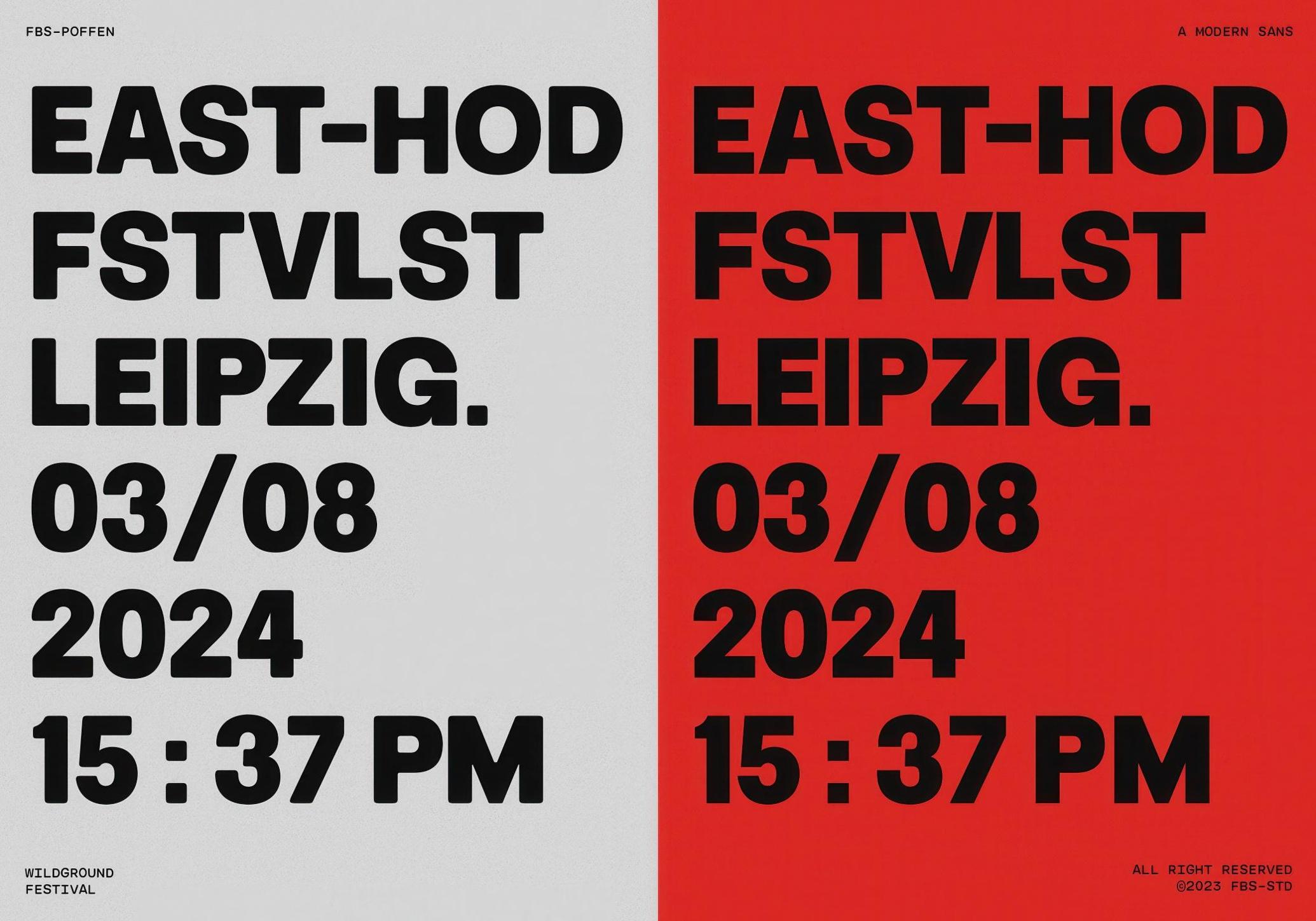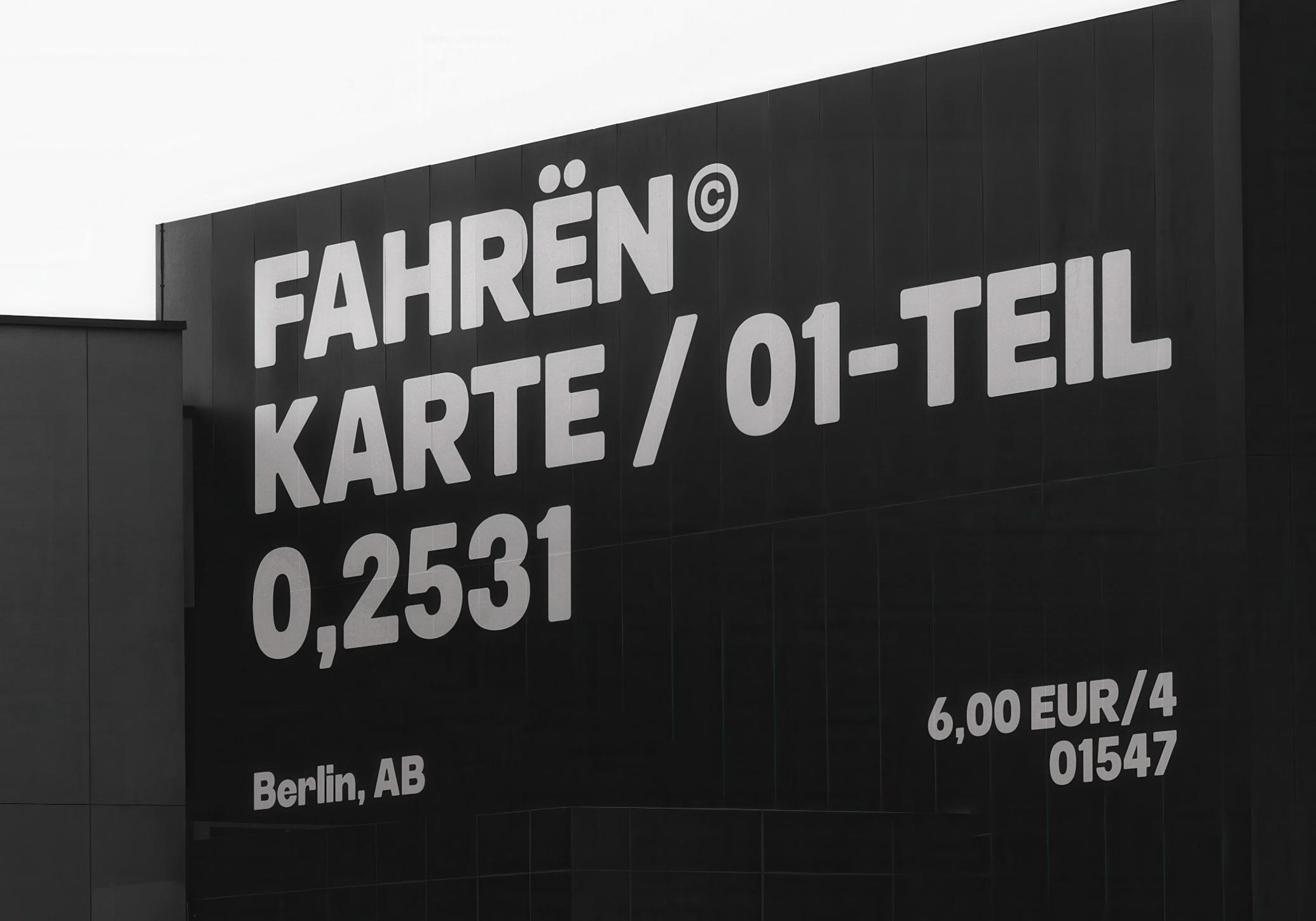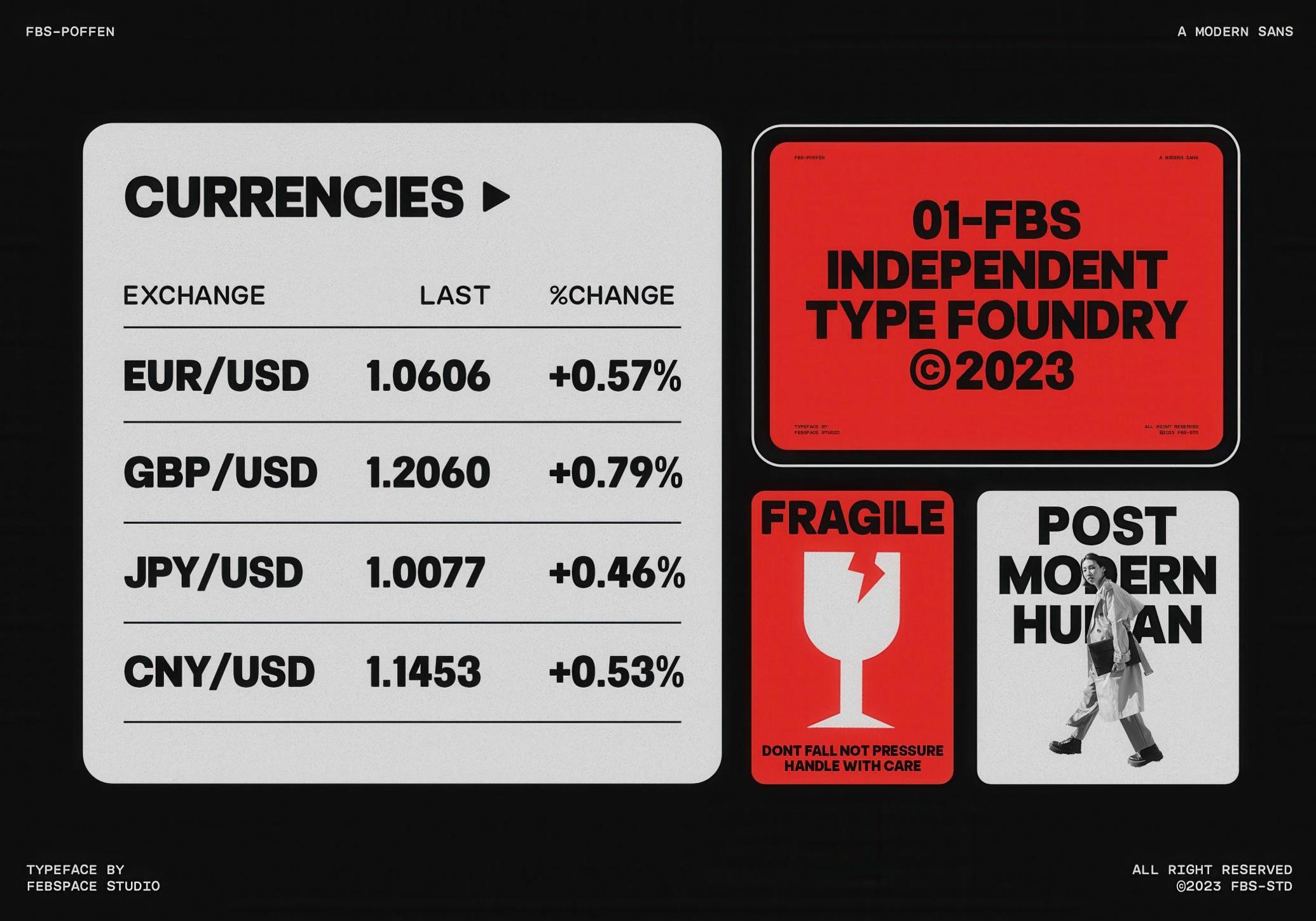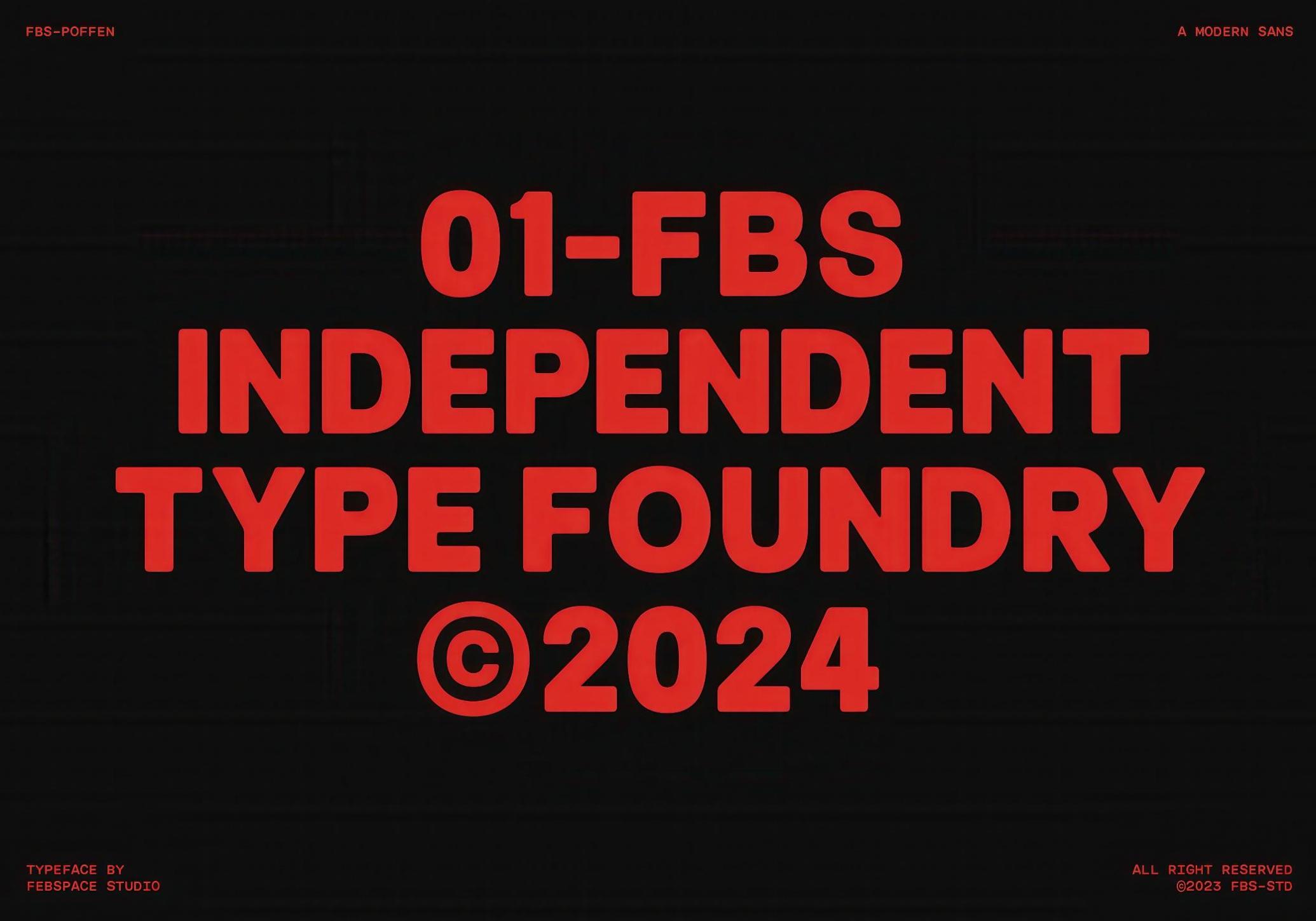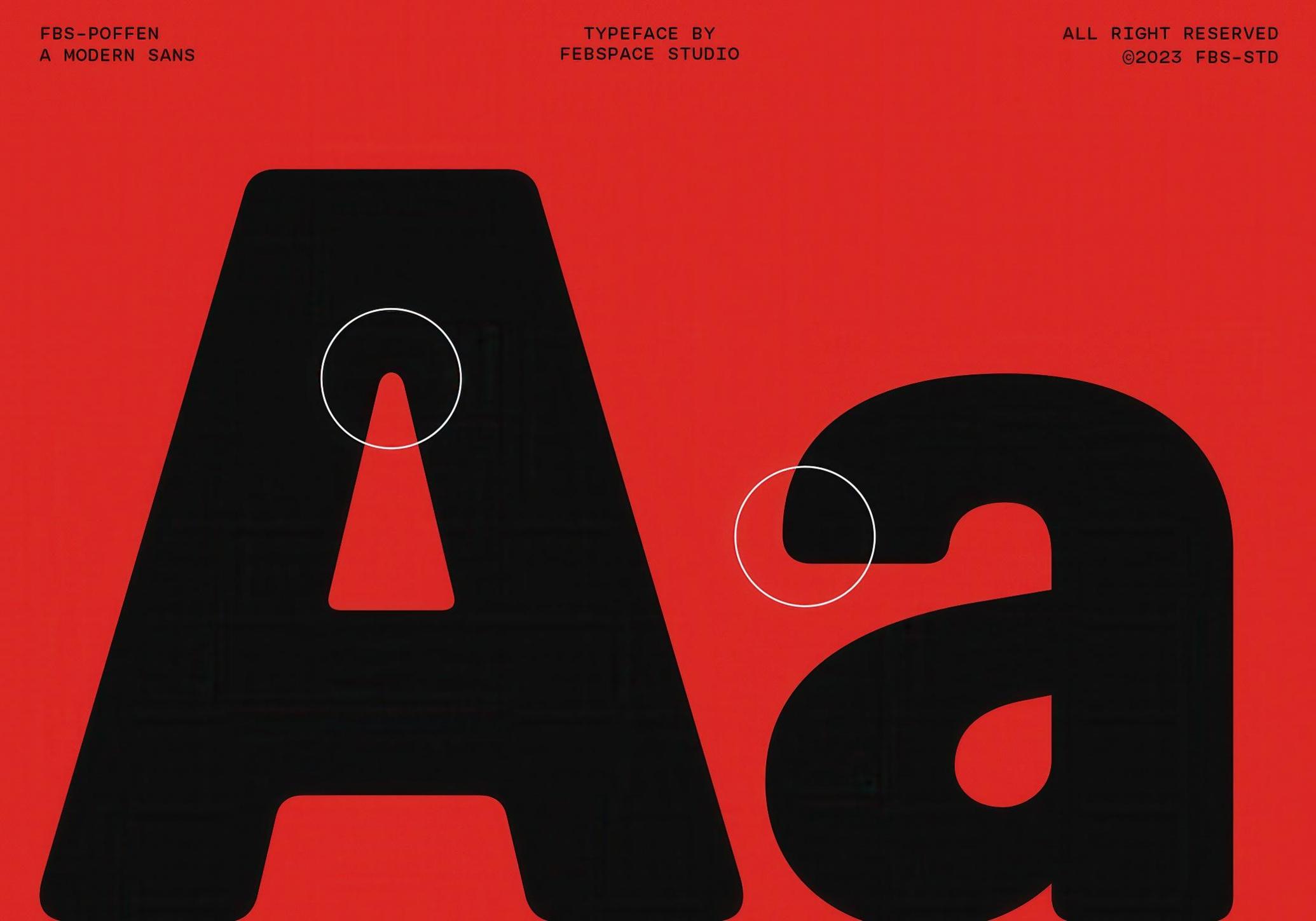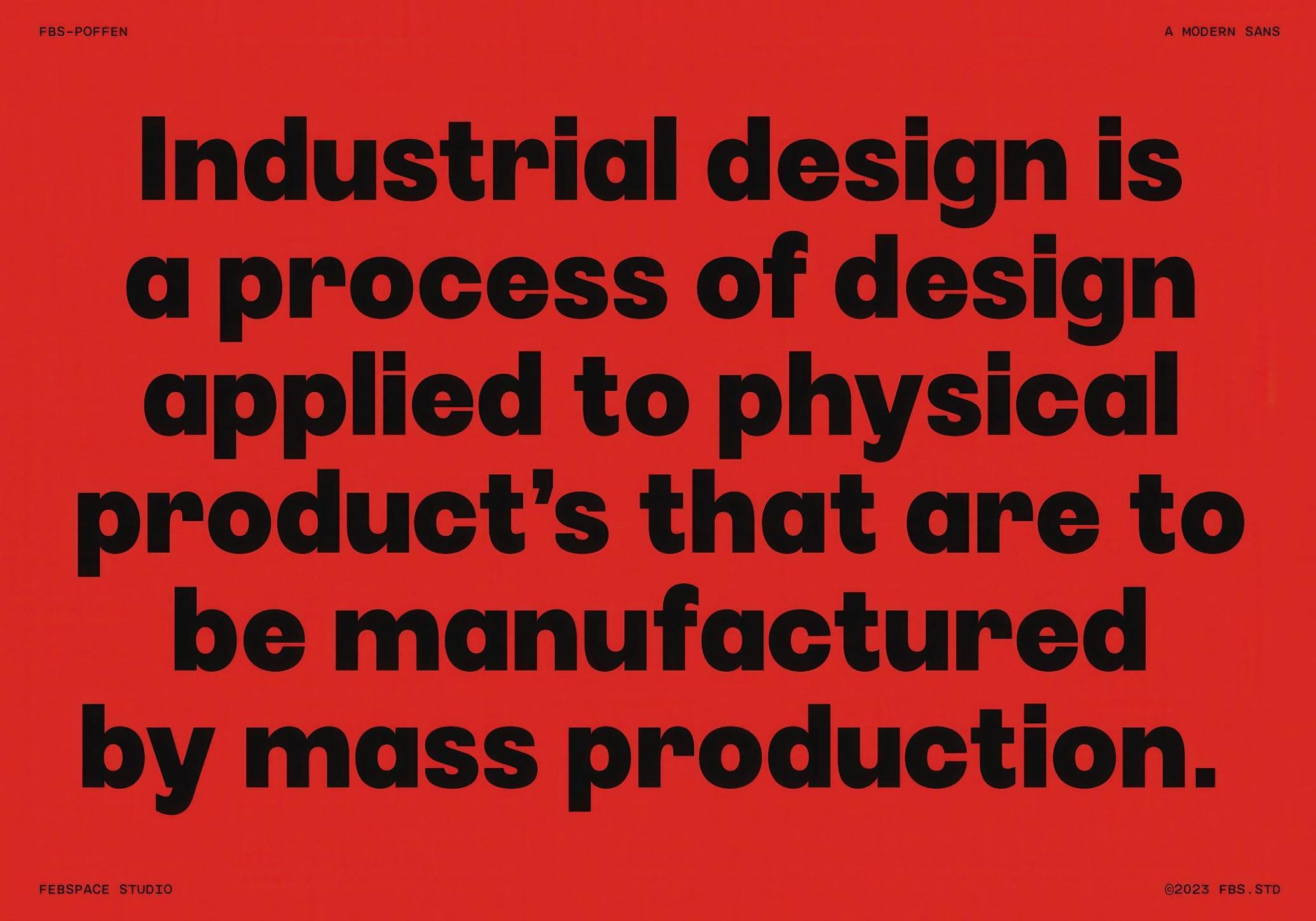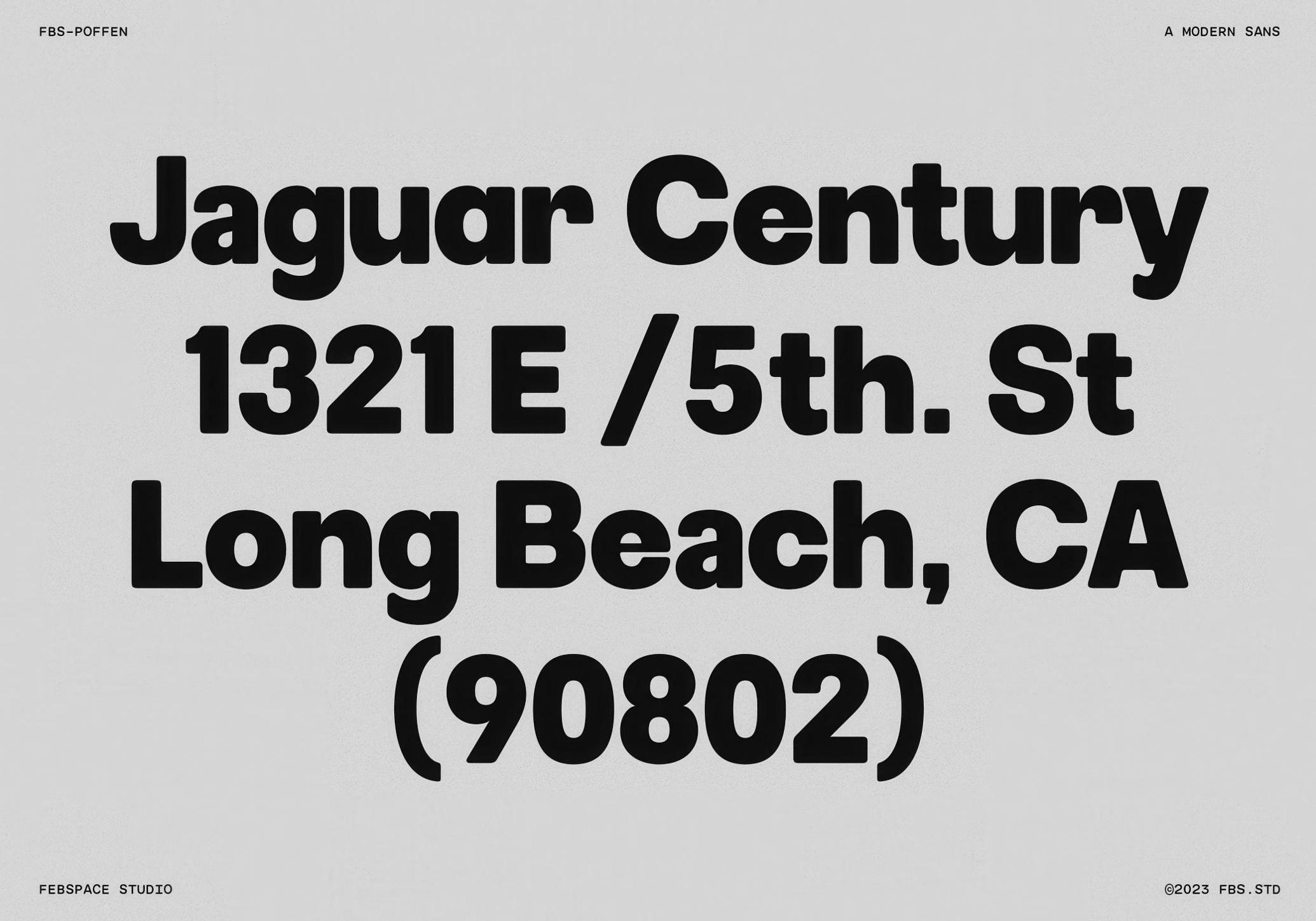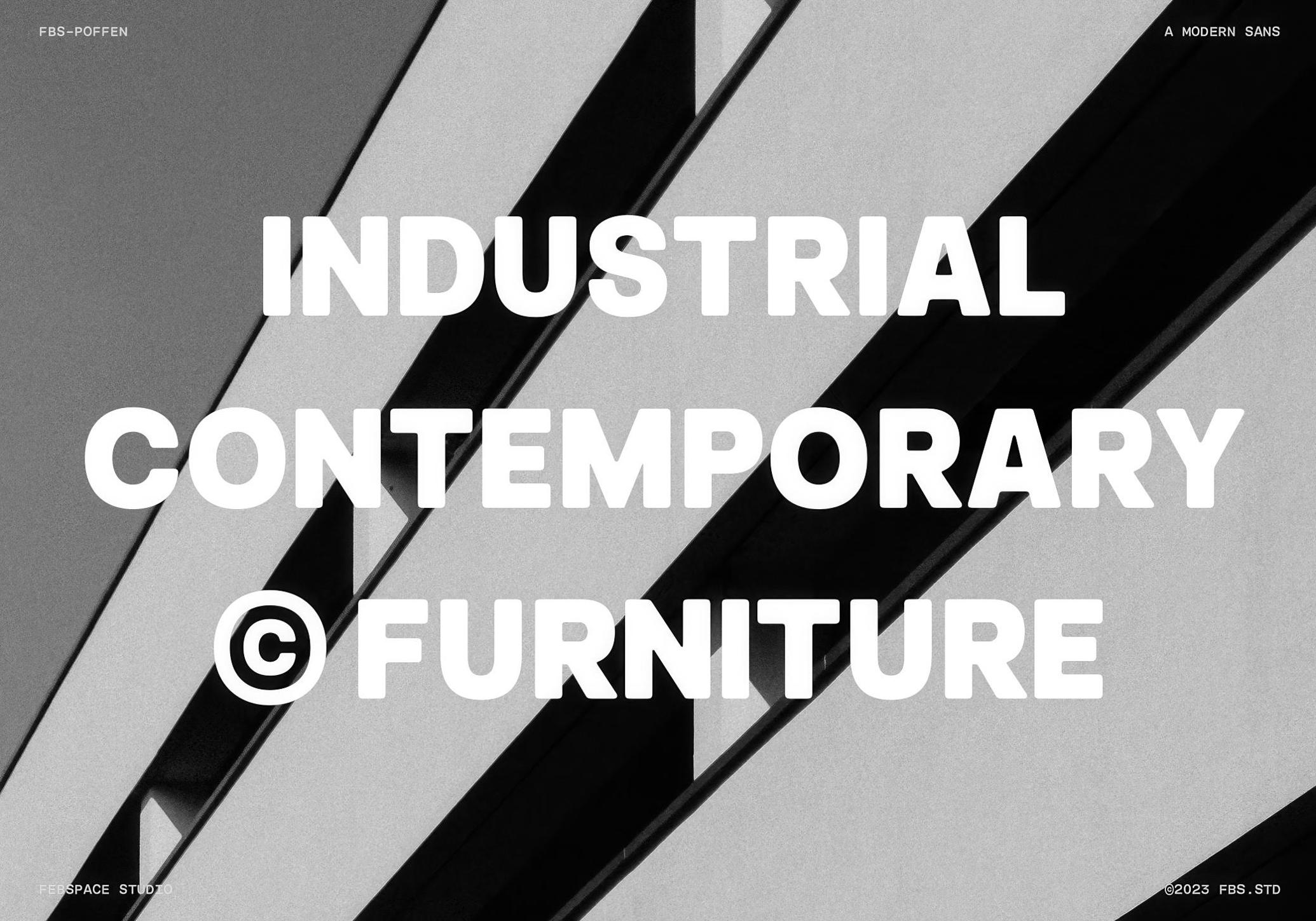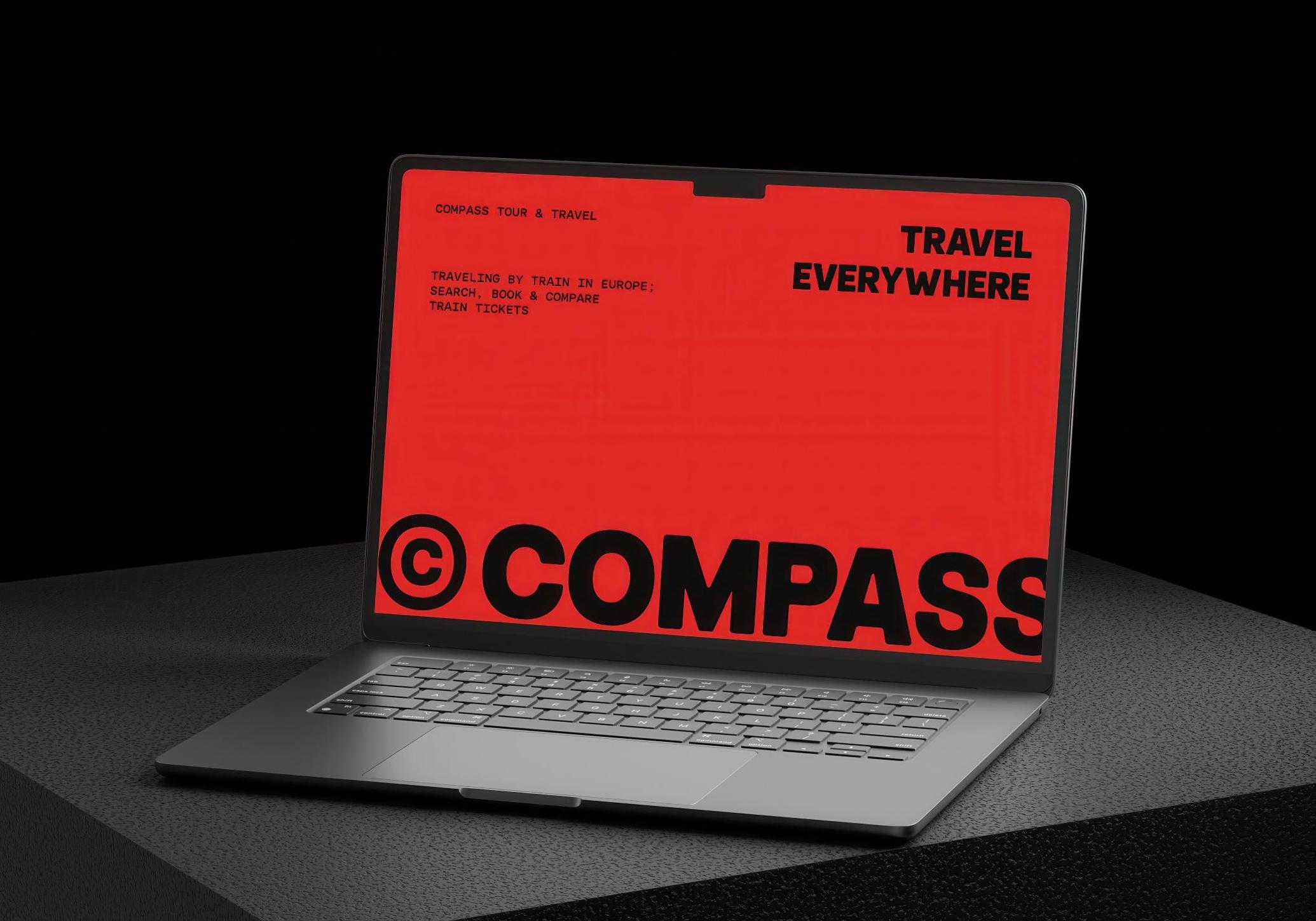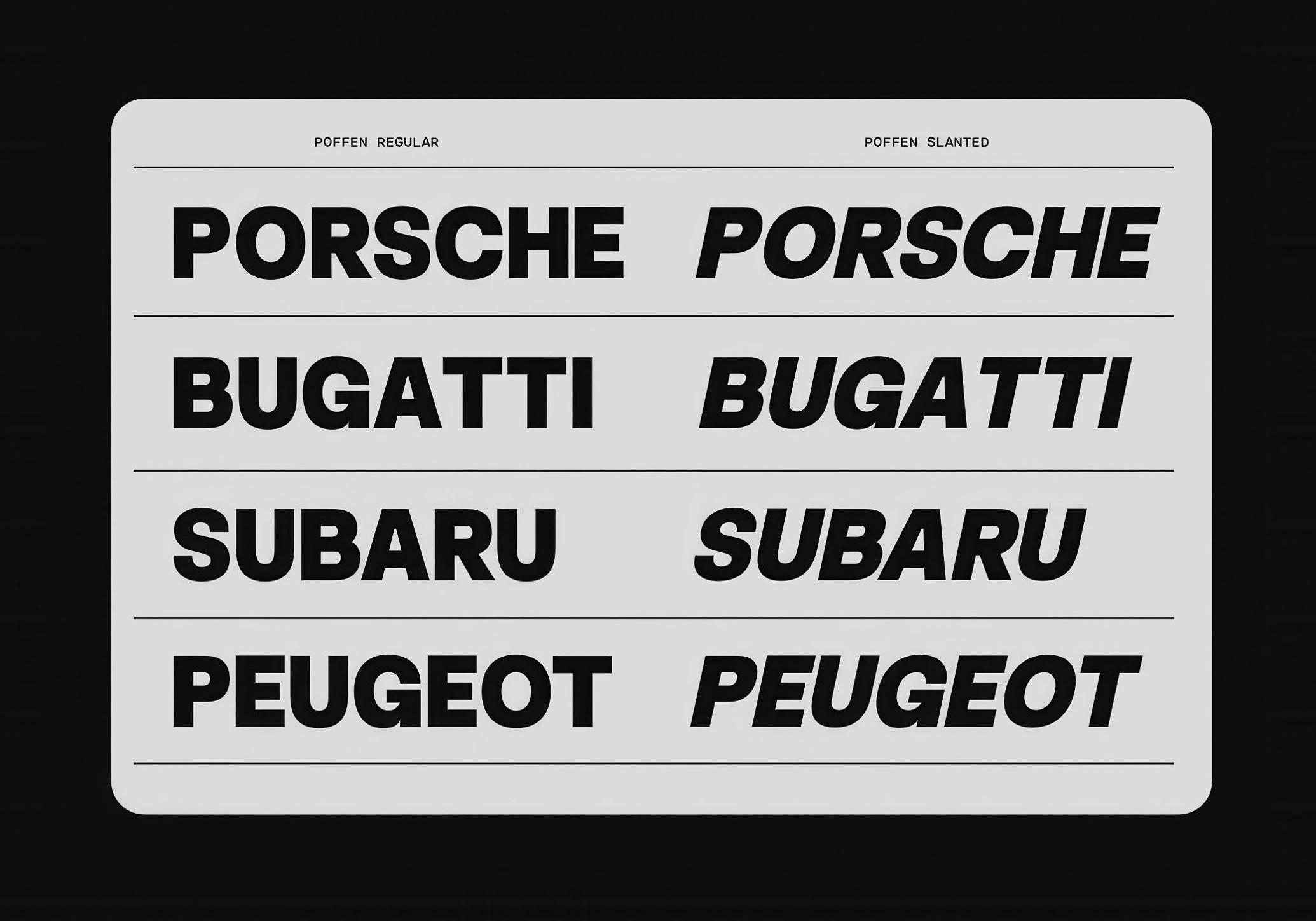
FBS Poffen Sans Serif
FBS Poffen craves going big and rewards it. With its weighty presence, industrial curves, and assertive spacing, this sans serif is built for scale — be it a concept store, urban signage, or whether you're shouting your message across the front page. There are four styles: Regular, Slanted, Rounded Slant, designed to feel editorial and brutally modern, echoing everything from economic dashboards to postmodern exhibition posters. The letterforms have a strong rhythm that thrives in all-caps layouts and grid-based compositions, making Poffen a favorite for designers working with identity systems, typographic installations, or high-contrast web design.